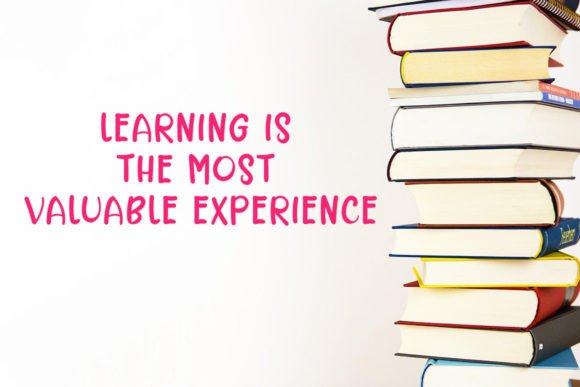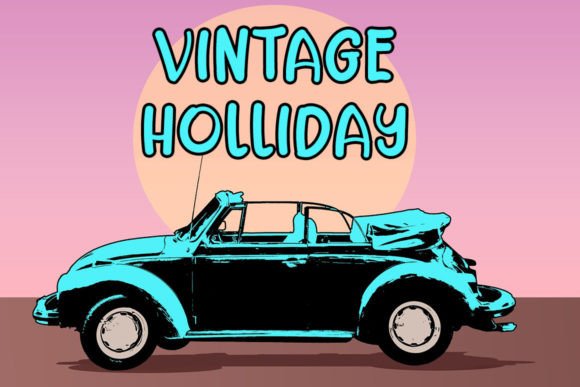
John Like Font
About John Like Font
John Like is a playful and adorable handwritten font that brings a fun and cute charm to various designs. Its versatility allows it to shine on a range of projects that demand a personalized touch, including but not limited to wedding invitations, thank-you cards, greeting cards, logos, and more.
The lively and whimsical nature of John Like adds a sense of joy to your designs, making it a fantastic choice for projects where a fun and personalized style is desired. Its handwritten appearance gives your text a warm and approachable feel, creating a connection with the audience.
Whether you’re crafting wedding invitations that exude a playful romance, expressing gratitude with thank-you cards, or creating a logo that stands out with personality, John Like adapts effortlessly to diverse design needs.
The font’s cuteness factor enhances its appeal, making it suitable for a wide range of creative endeavors. It becomes a standout element, contributing to the overall visual appeal of your designs.
In summary, John Like is more than just a font; it’s a creative tool that adds a fun and cute dimension to your projects. Embrace its playful handwritten style, and watch as it brings a personalized and delightful touch to your wedding invitations, thank-you cards, greeting cards, logos, and beyond. Let John Like be the choice that infuses your designs with joy and personality.